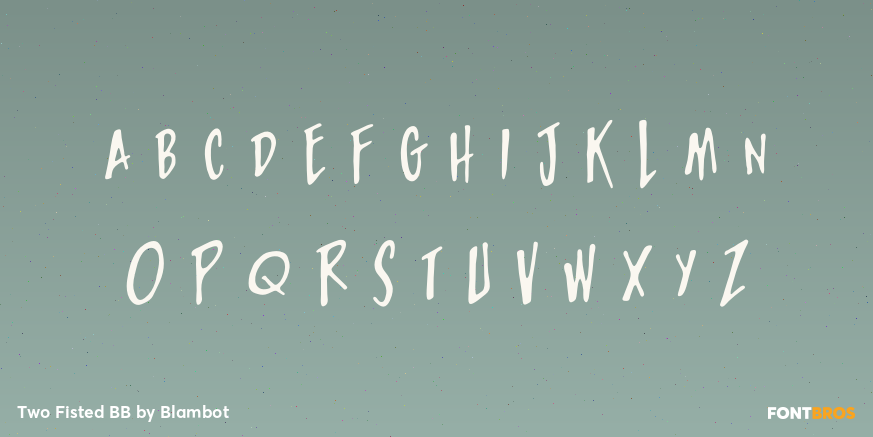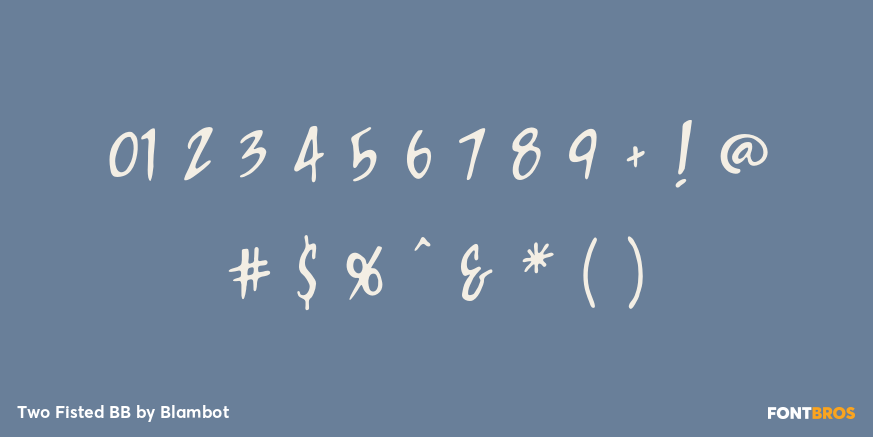
Two Fisted BB
Font Family by Blambot
Based on one of Nate Piekos' own custom sound effects fonts, this updated and expanded font family offers four versions of each letter so you can mix and match for a more organic look.
Comes with Regular, Italic, Alt, & Alt Italic, and has a hefty compliment of European characters.